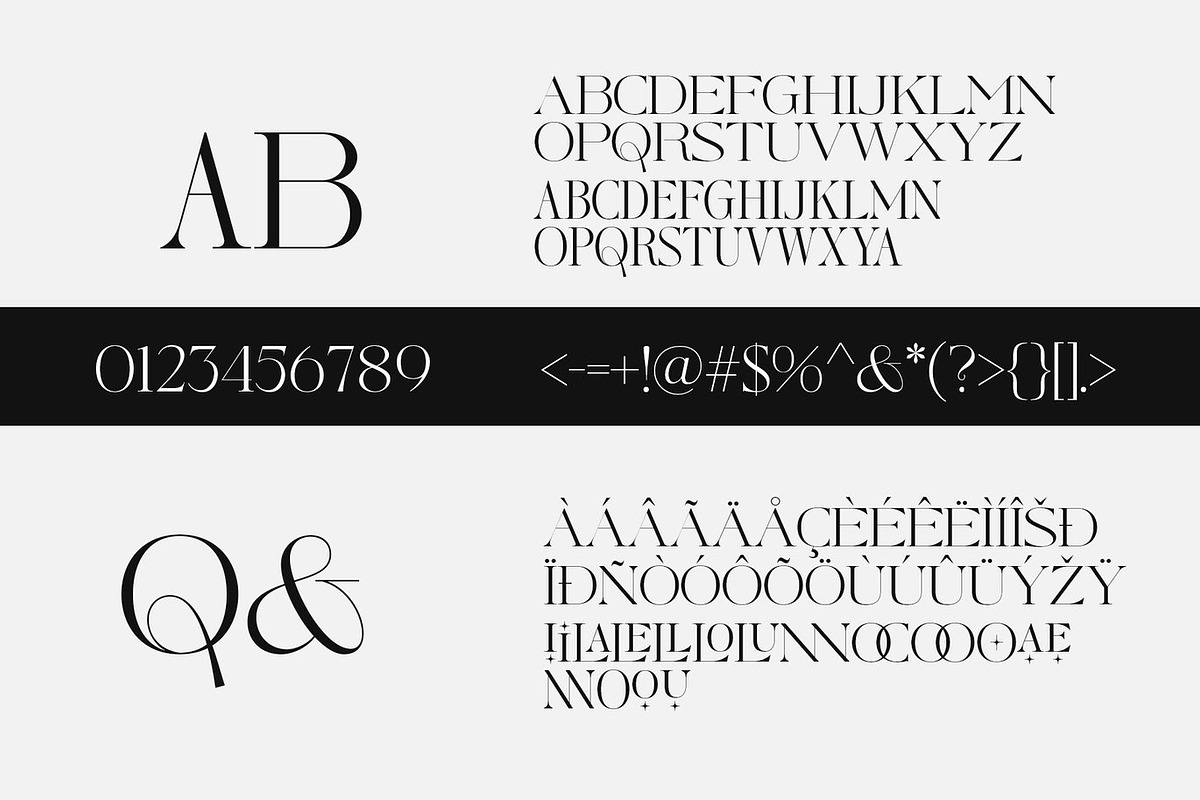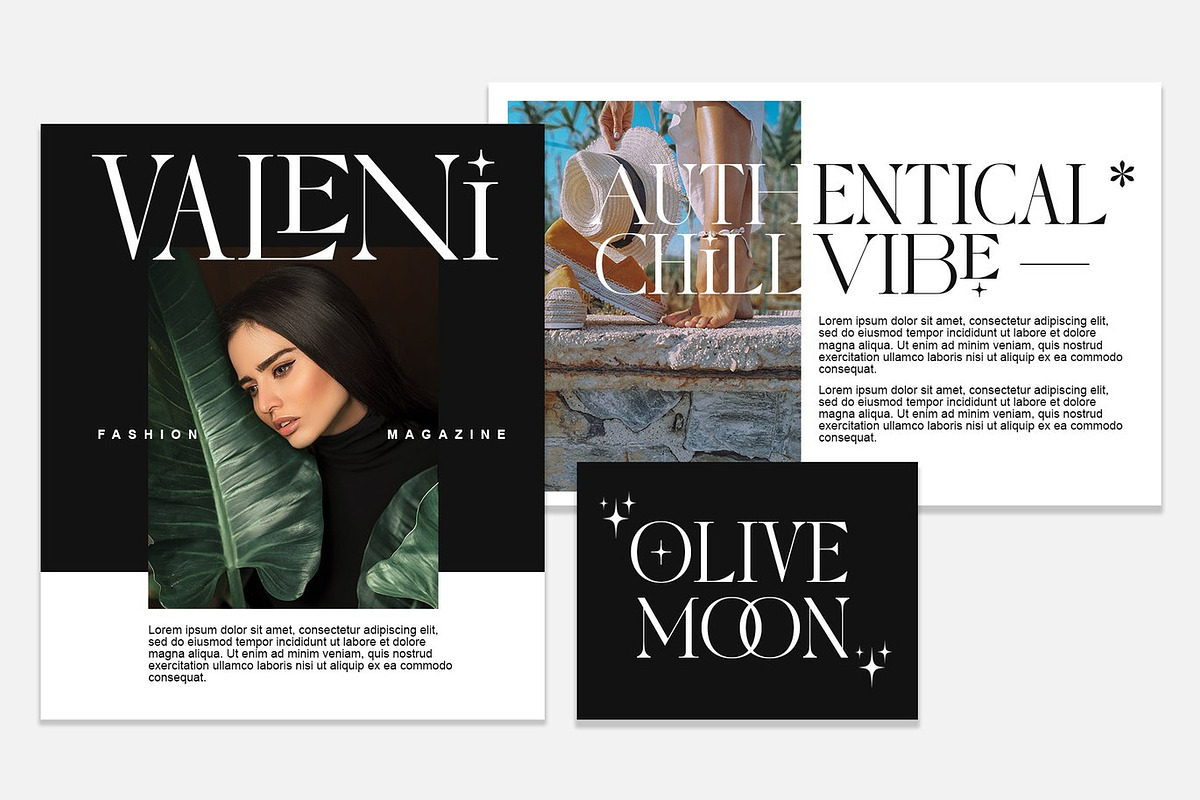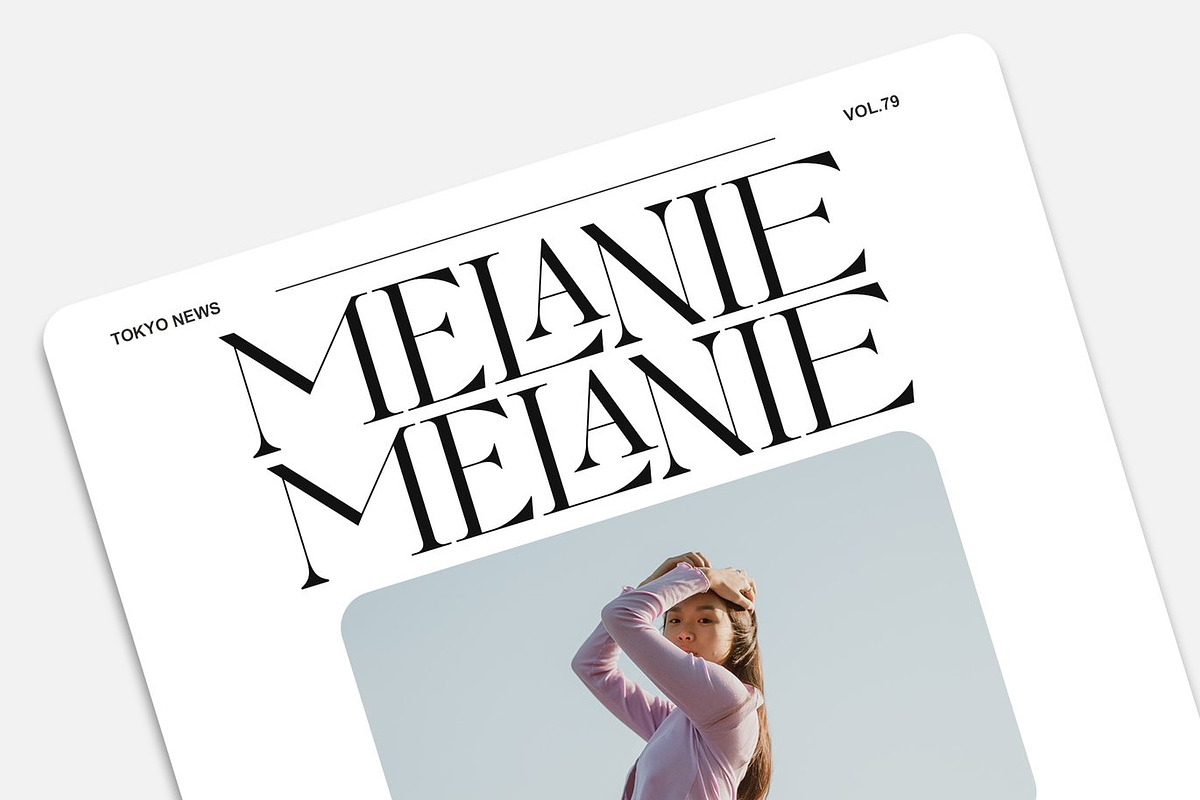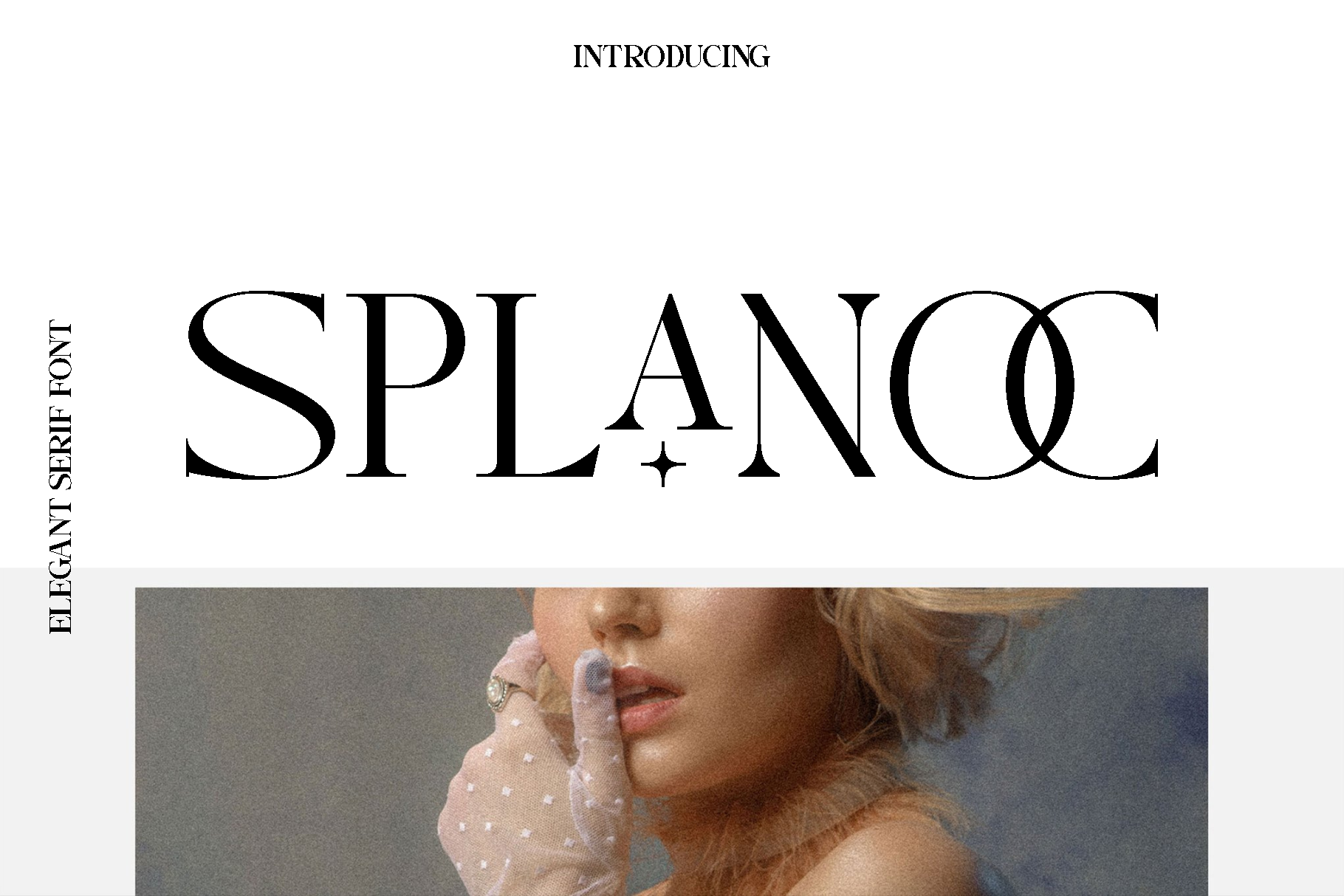
Splanoc Elegant Serif Font
Splanoc is a modern typeface designed to bring clarity, personality, and versatility to a wide range of creative projects. Created with a focus on clean structure and balanced proportions, Splanoc offers a timeless look that feels both contemporary and approachable. Its carefully crafted letterforms provide excellent readability while maintaining a distinctive style that enhances visual storytelling.
The font shines across many design applications, from books and magazines to branding and logo creation. Splanoc works beautifully in editorial layouts, photography overlays, quotes, blog headers, posters, and advertising materials. Whether used for long form text or eye catching headlines, it delivers a polished and professional appearance that adapts seamlessly to print and digital environments.
Splanoc feels refined yet friendly, making it a reliable choice for designers who want flexibility without sacrificing style. Its functional design allows it to complement both minimal and expressive compositions, helping you create cohesive and engaging visuals. With its strong readability and balanced rhythm, Splanoc ensures your message remains clear while your design stands out with confidence.
Splanoc Typeface Features:
• Uppercase and lowercase characters
• Numerals and functional punctuation
• Multilingual support
Splanoc is a dependable and stylish addition to any designer’s collection, offering the flexibility to support a wide spectrum of creative ideas with elegance and ease.